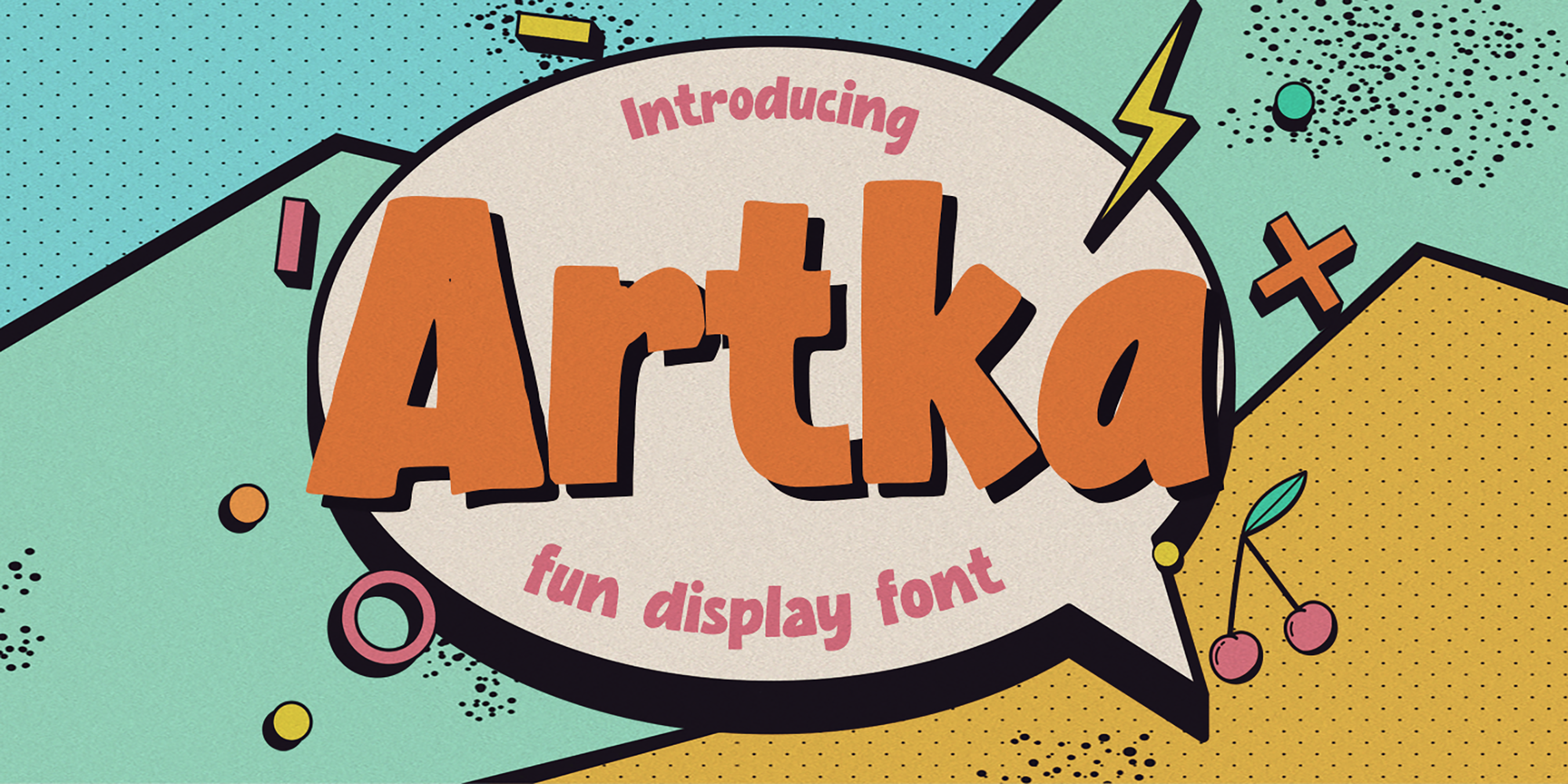
Artka Font is perfect for contemporary art gallery exhibitions, modern design studio branding, creative agency portfolios, avant-garde fashion labels, artistic workshop signage, cultural center programs, experimental theater posters, independent magazine layouts, conceptual art installations, and innovative product packaging.
What makes Artka Font so exciting is its bold expression of artistic innovation and creative freedom through unconventionally structured letterforms that challenge traditional typography boundaries while maintaining sophisticated readability. The font's design philosophy embraces experimental aesthetics and artistic rebellion, featuring unexpected angles, asymmetrical elements, and deliberate imperfections that reflect the spontaneous nature of contemporary art and creative expression. Each character appears to be sculpted by an avant-garde artist, creating a visual language that instantly communicates creativity, originality, and the fearless pursuit of artistic vision. This remarkable typeface transforms ordinary text into compelling expressions of artistic identity that resonate with audiences who appreciate innovative design and creative authenticity.
The Artka Font family includes artistic variations: Regular, Bold, Light, Medium, Condensed, Extended, Italic, Abstract, and Experimental styles. Each variation maintains the font's characteristic creative spirit while offering different levels of artistic complexity and experimental detail for various contemporary art and design applications.
When searching for a typeface that embodies the essence of artistic innovation and creative expression, Artka Font Free Download represents the perfect fusion of experimental design with sophisticated functionality that elevates any project to new dimensions of artistic credibility and creative appeal.
The masterfully crafted letterforms of Artka Font demonstrate superior attention to artistic balance, featuring unconventional proportions, creative spacing, and innovative structural elements that ensure optimal readability while maintaining the font's distinctive artistic character. Its versatile design adapts beautifully from intimate artist business cards to expansive museum exhibition graphics.
Professional designers working on art institutions, creative agencies, and innovative brands particularly value the font's ability to convey artistic authenticity, creative vision, and avant-garde appeal. The typeface works exceptionally well for projects targeting art enthusiasts, creative professionals, and anyone seeking to project innovative positioning and artistic excellence.
The extensive OpenType features of Artka Font include artistic alternates, creative ligatures, and specialized experimental characters that enable designers to create sophisticated artistic typography while maintaining the font's distinctive creative character throughout all design elements and contemporary art applications.